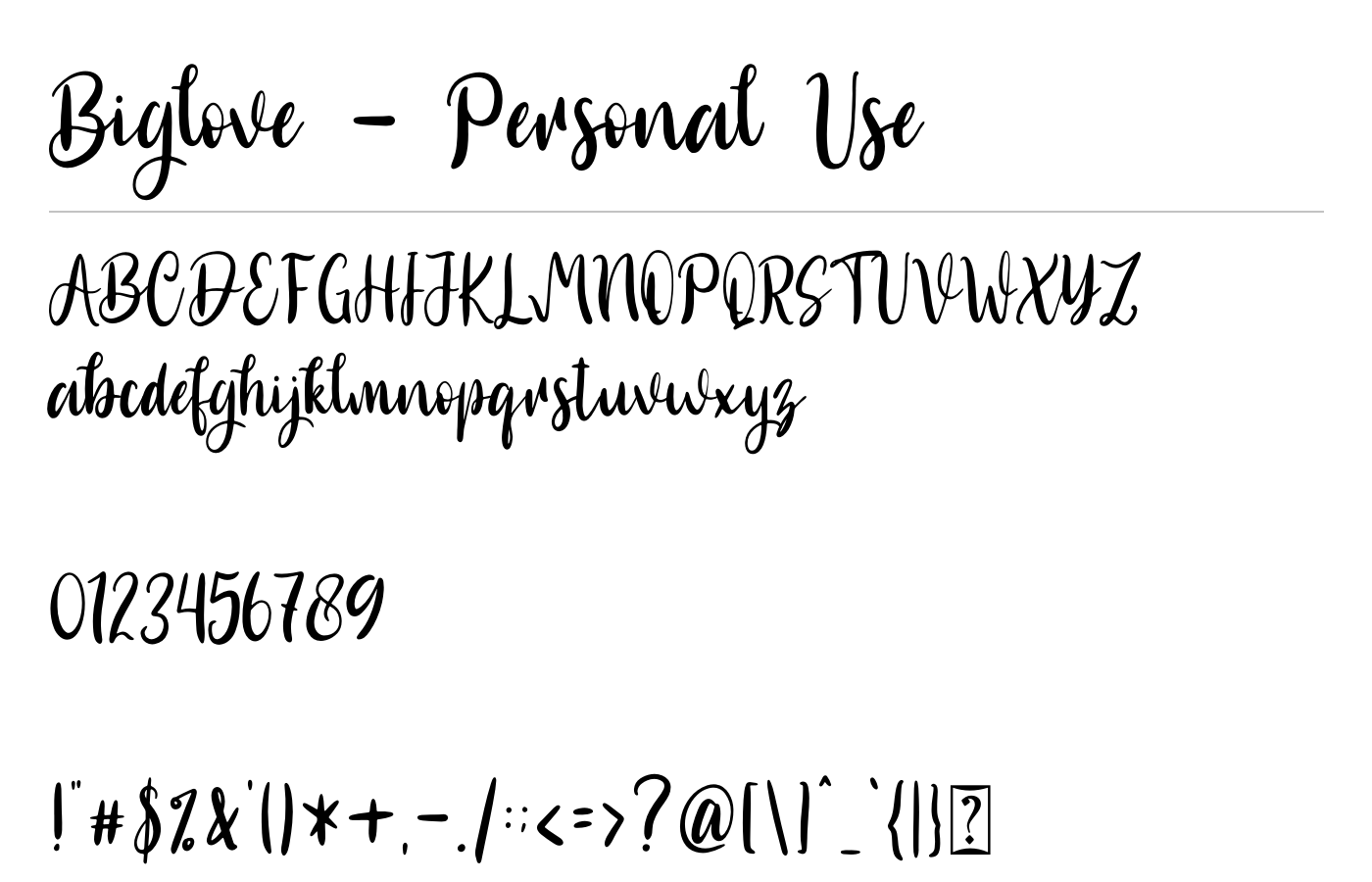
Biglove is a charming, playful script font with a handwritten feel, featuring smooth, fluid strokes and high contrast that give it an elegant yet casual vibe. Its tall, narrow letterforms with unique loops and swashes make it ideal for personal projects, invitations, and branding that seeks a warm, friendly touch. This font works beautifully in headlines or logos where a personal, creative flair is desired.
Biglove - Personal Use Font
About Biglove - Personal Use Font
| Font family | Biglove - Personal Use Font |